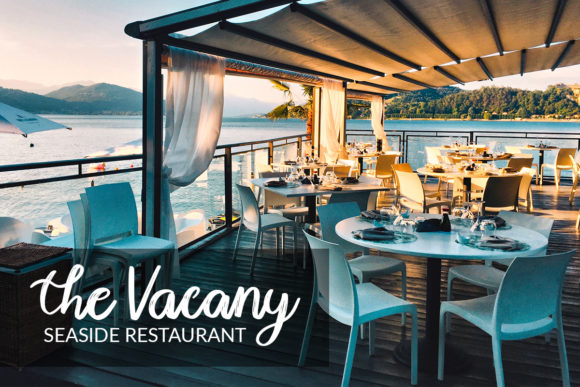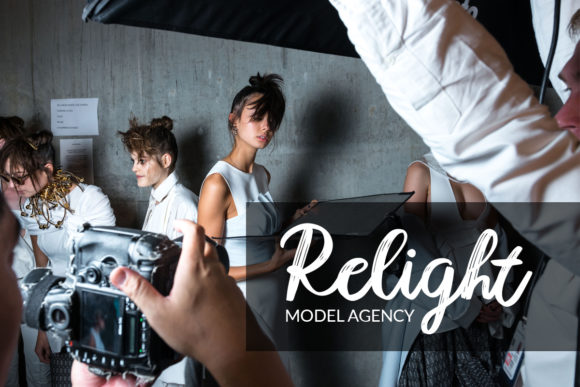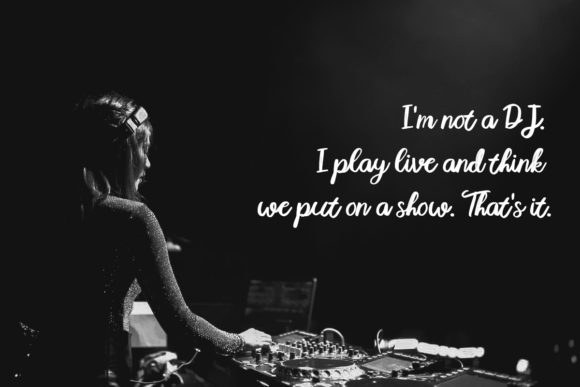
Introduction to Karmany Font
As a designer, you’ve probably experienced that moment when the perfect font comes along and elevates your entire project. For me, it was when I stumbled upon the Karmany Font – a sweet and cool handwritten font that instantly brought my creative idea to life. With its unique style and bold flavor, the Karmany Font is the perfect addition to any design project.
But what makes the Karmany Font truly special is its versatility. Whether you’re working on a high-quality design resource, a free download, or a complex creative project, this font is sure to bring a touch of elegance and sophistication. Plus, its transparent background makes it easy to integrate into any design, ensuring seamless integration and a professional finish.
As a valuable resource for designers, the Karmany Font is a game-changer. With its high-quality design and unique style, it’s the perfect tool to take your creative projects to the next level. In this article, we’ll delve deeper into the world of the Karmany Font and explore its many benefits and uses.
Key Features of Karmany Font
- High-quality, professional font design perfect for creative projects and design resources.
- Transparent background, allowing for seamless integration into various design elements and backgrounds.
- Designed with a focus on readability and aesthetic appeal, making it suitable for a variety of design applications.
- Resolution-independent, allowing for crisp and clear display at various sizes and resolutions.
- Perfect for use in logos, typography, and other design elements where a high-quality, unique font is required.
Honest Review: Karmany Font
As a designer, I’m always on the lookout for high-quality fonts to enhance my creative projects. Recently, I stumbled upon the Karmany Font, and I must say, it’s been a game-changer for me.
- ✨ High-quality design: The Karmany Font boasts an elegant, modern design that’s perfect for a variety of creative projects.
- ✨ Transparent background: The font’s transparent background allows for seamless integration with any design, giving it a professional touch.
However, I do have some limitations to note:
- ⚠️ Limited font styles: While the Karmany Font has a beautiful design, it’s limited to a few font styles, which might not be ideal for projects requiring multiple font variations.
Overall, I’m thoroughly impressed with the Karmany Font. Its high-quality design, free download, and transparent background make it an excellent addition to any design resource. While it may have some limitations, it’s definitely worth considering for your next creative project.
Common Use Cases and Tips
The Karmany Font is suitable for a wide range of creative projects, including branding, advertising, and editorial design. To get the most out of this font, use it for headings and titles to create visual hierarchy and emphasis. Additionally, experiment with different font sizes and styles to add depth and interest to your designs.
Q: Is the Karmany Font suitable for high-resolution printing?
Yes, the Karmany Font is designed to be high-resolution and suitable for printing at various sizes. The font includes a range of weights and styles, allowing you to customize the look and feel of your project. When printing, we recommend using a high-quality printer and settings to ensure the best results.